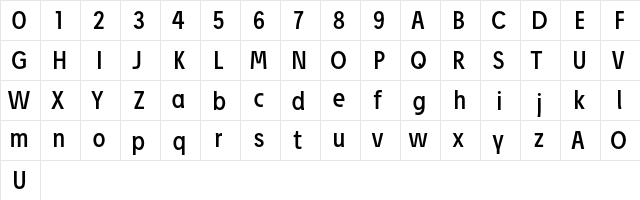
Josef Pro Regular
| Foundry | Ingo Zimmermann, ingoFonts Augsburg |
| Designer | Ingo Zimmermann |
Design Context for Josef Pro Typeface
Josef Pro is a composed and adaptable typeface that performs quietly and consistently across a wide range of design contexts.